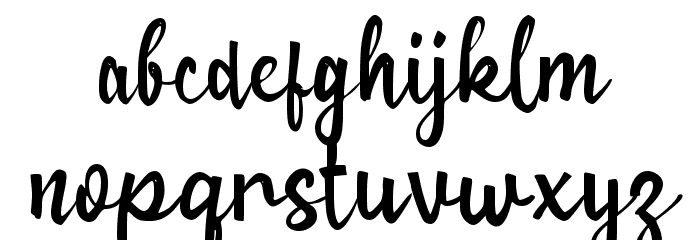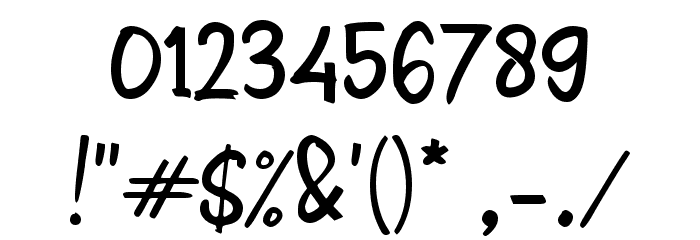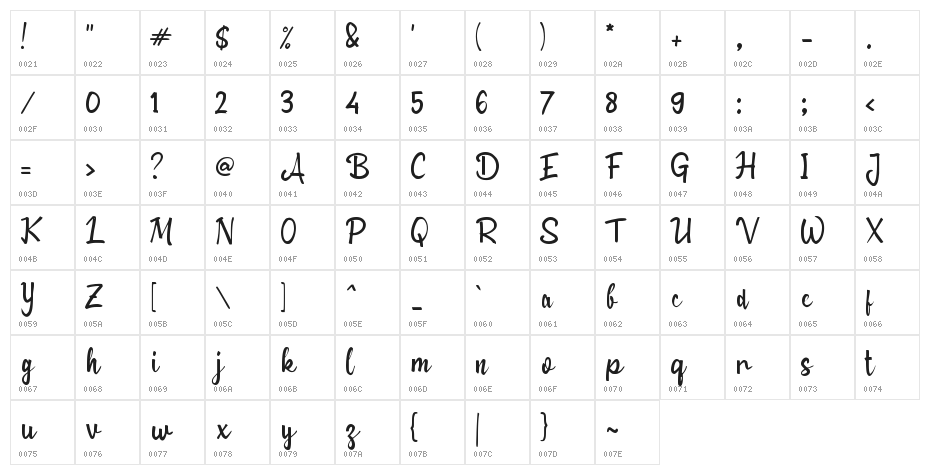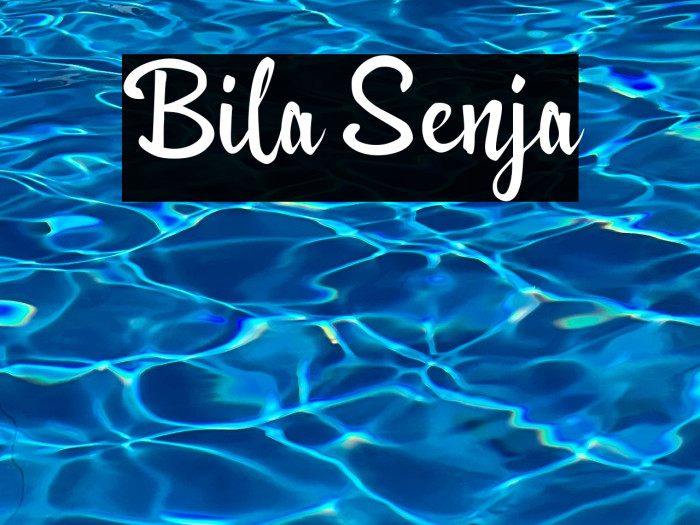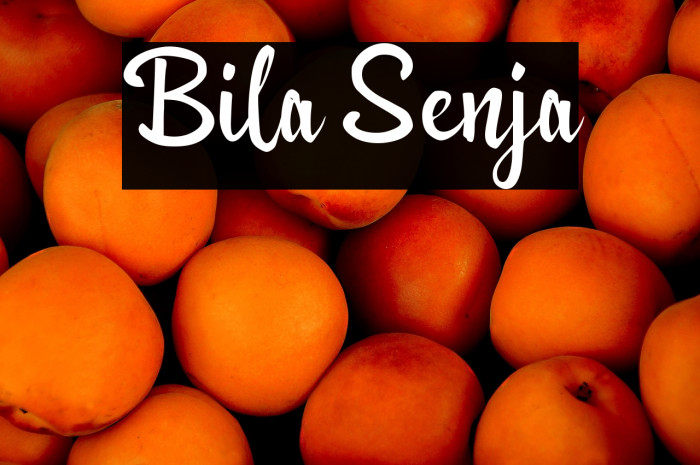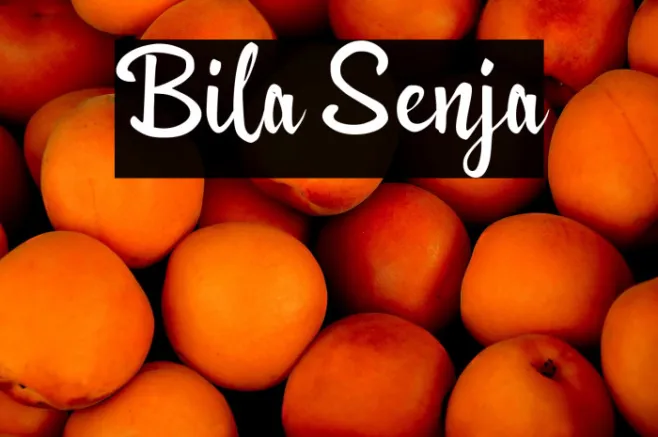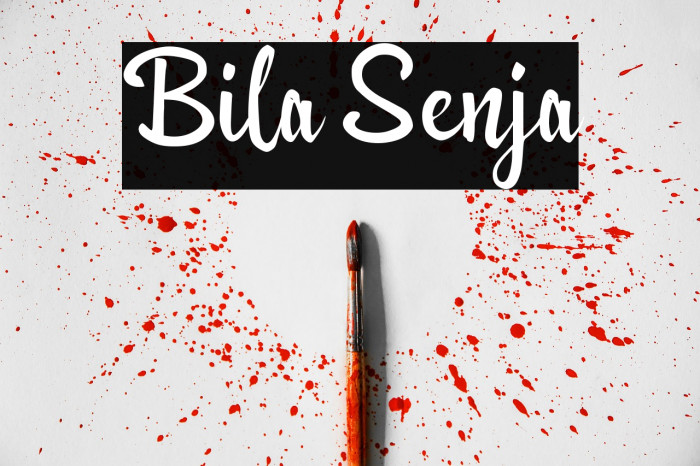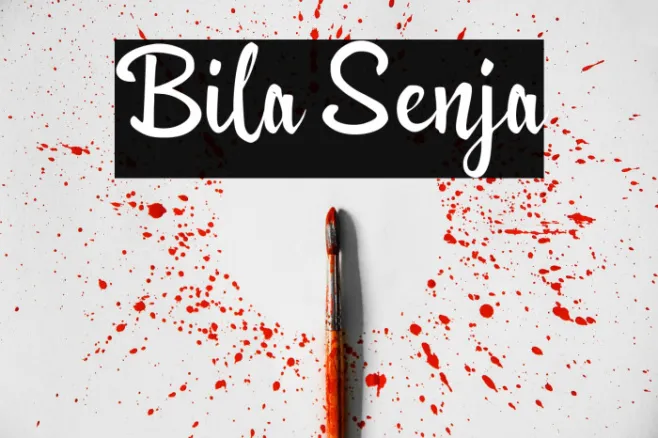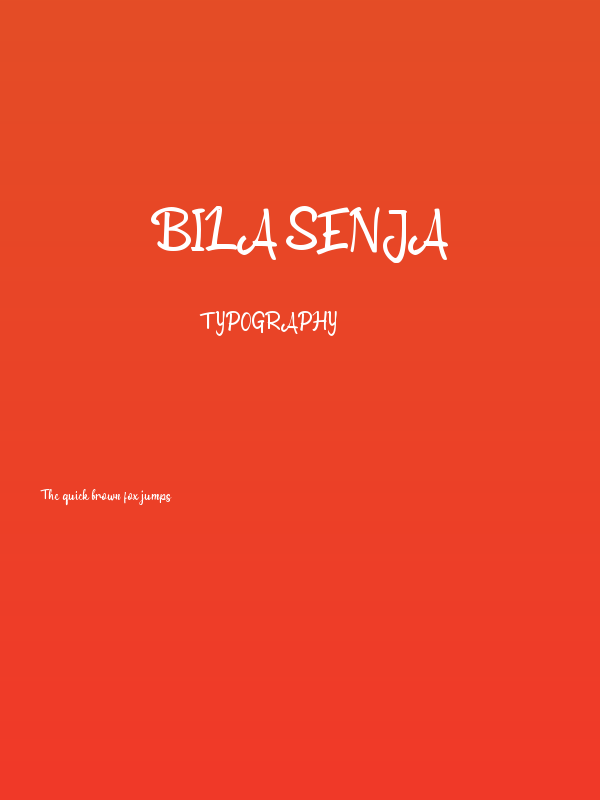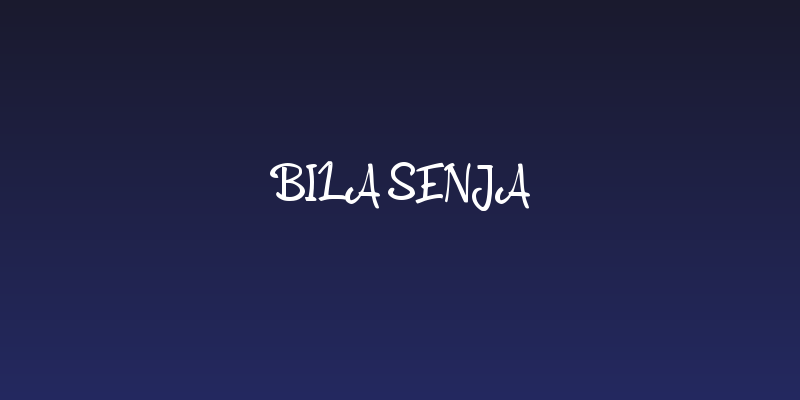
Bila Senja Font
This font features a playful and casual handwritten style, characterized by its flowing and slightly irregular strokes. The uppercase letters are bold and dynamic, with a slight slant that adds a sense of movement. The lowercase letters maintain a consistent style, with rounded edges and a friendly appearance. Numbers and special characters are designed to match the overall aesthetic, ensuring a cohesive look across all text. The font's informal and approachable nature makes it suitable for a variety of creative projects.
A playful, handwritten font with a casual and dynamic style.
- Font: Bila Senja
- Proposed Projects: Ideal for greeting cards, invitations, personal branding, and creative social media graphics.
- Category: Handwritten
- Overall Style: Casual, Playful
- Use Case: Headlines, Logos, Creative projects